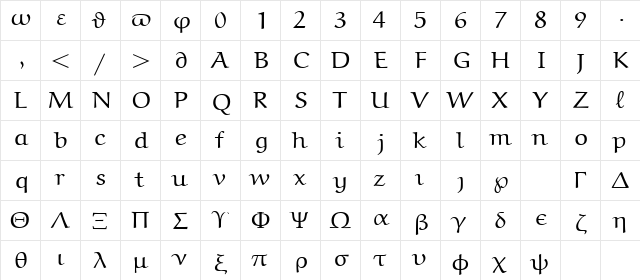
eurm8 Regular
Design Context for eurm8 Typeface
eurm8 takes a measured approach to typography — its balanced proportions and neutral character make it a reliable workhorse for both digital and print work.